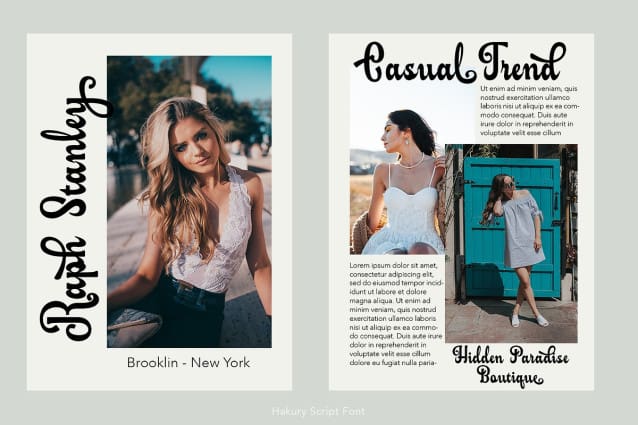
Hakury Retro Font
Hakury Retro Font is a script font comes with retro curly style with a lot alternative and ligature. This font perfect for poster design, book covers, merchandise, fashion brands, advertising, magazines, album covers, wedding invitation and more.